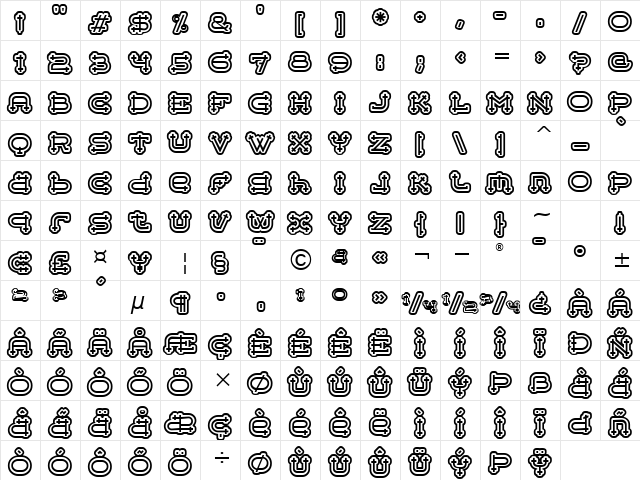
BelterMegaOutlineITC TT Regular Font Preview
BelterMegaOutlineITC TT Regular
Design Context for BelterMegaOutlineITC TT Typeface
BelterMegaOutlineITC TT is built around its visual character rather than neutral utility — its distinctive forms are designed to make an impression at display sizes.
Font Pairing: Pair with a clean neutral sans-serif for body copy to let BelterMegaOutlineITC TT's character lead without overwhelming the composition.
Pro Tip: Use BelterMegaOutlineITC TT exclusively at display sizes — it was designed to be seen, not read at length. Let a neutral companion handle body copy.